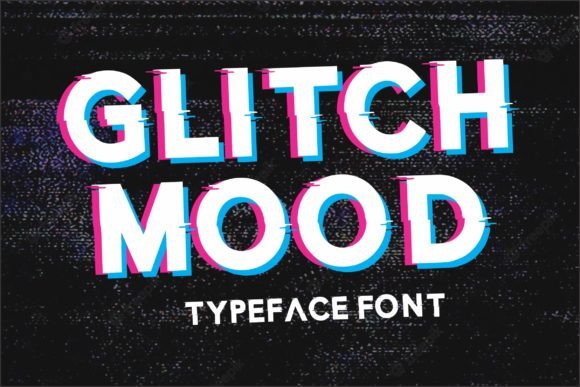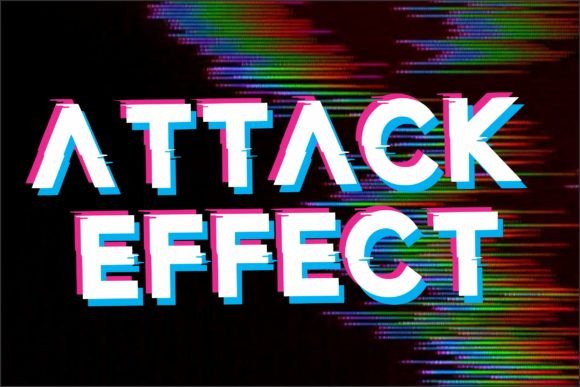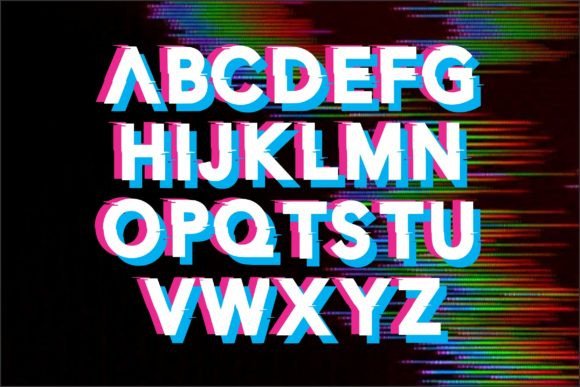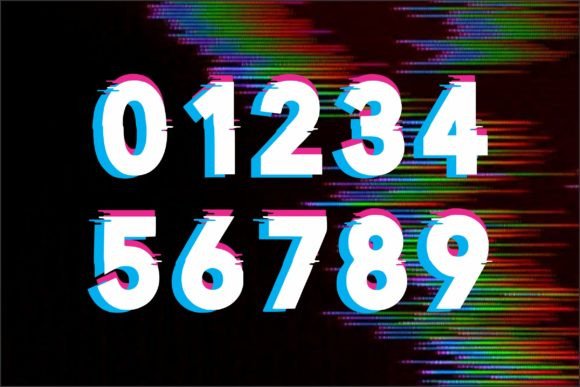
Glitch Mood Font: A Bold Display Font for Cyberpunk & Futuristic Design
About the Glitch Mood Font
Step up your design game with Glitch Mood Font, a font that exudes confidence and style. Glitch Mood is a fun and quirky display font that describes system errors. Add it confidently to your creative ideas and you will be impressed by the outcome generated!
Glitch Mood excels as a display font for headlines, short taglines, and striking visual elements in posters or branding projects targeting a youthful, tech-savvy audience. Its unique character works best in applications requiring a bold, attention-grabbing aesthetic, but it’s unsuitable for body text or UI elements where readability is paramount. Avoid using it in long paragraphs or situations demanding high legibility.
Pairing Glitch Mood with a clean sans-serif like Open Sans for body copy creates a strong contrast, balancing the font’s playful energy with a sense of order. For a more sophisticated look, consider pairing it with a classic serif font like Garamond, using Glitch Mood sparingly for impactful headlines. A geometric sans-serif would also complement its slightly chaotic nature.
Its overall personality is energetic and rebellious, with a modern, slightly disruptive edge. This makes it ideal for projects related to technology, gaming, street art, or anything that benefits from a visually exciting, unconventional approach.